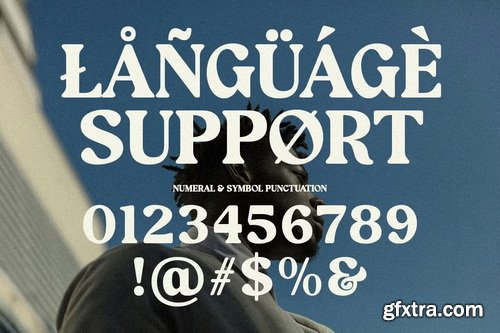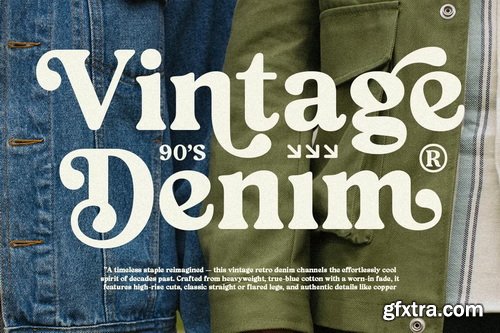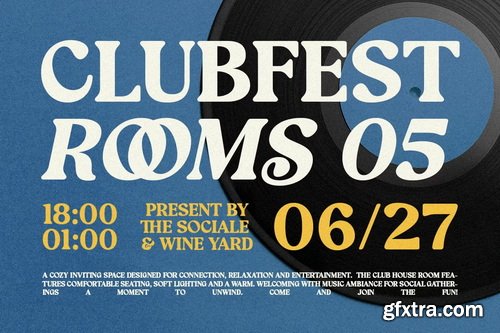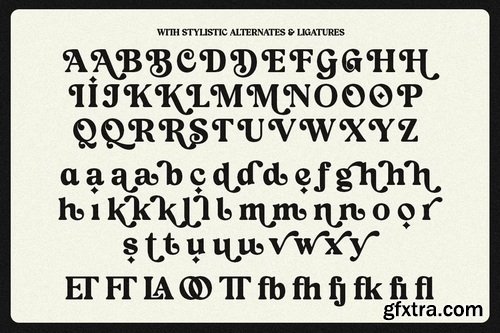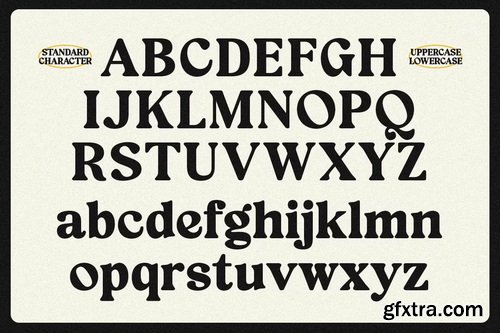
CreativeMarket - Humble Belongs Retro Serif Font
- Introducing Humble Belongs – a bold retro serif typeface infused with vintage personality and warm character. Its smooth curves, soft edges, and chunky serifs bring back the essence of old-school charm with a contemporary twist. Humble Belongs is the perfect fusion of nostalgia and modern readability. Designed to elevate visual storytelling with retro flair, this font is ideal for designs that need personality, authenticity, and standout display aesthetics.